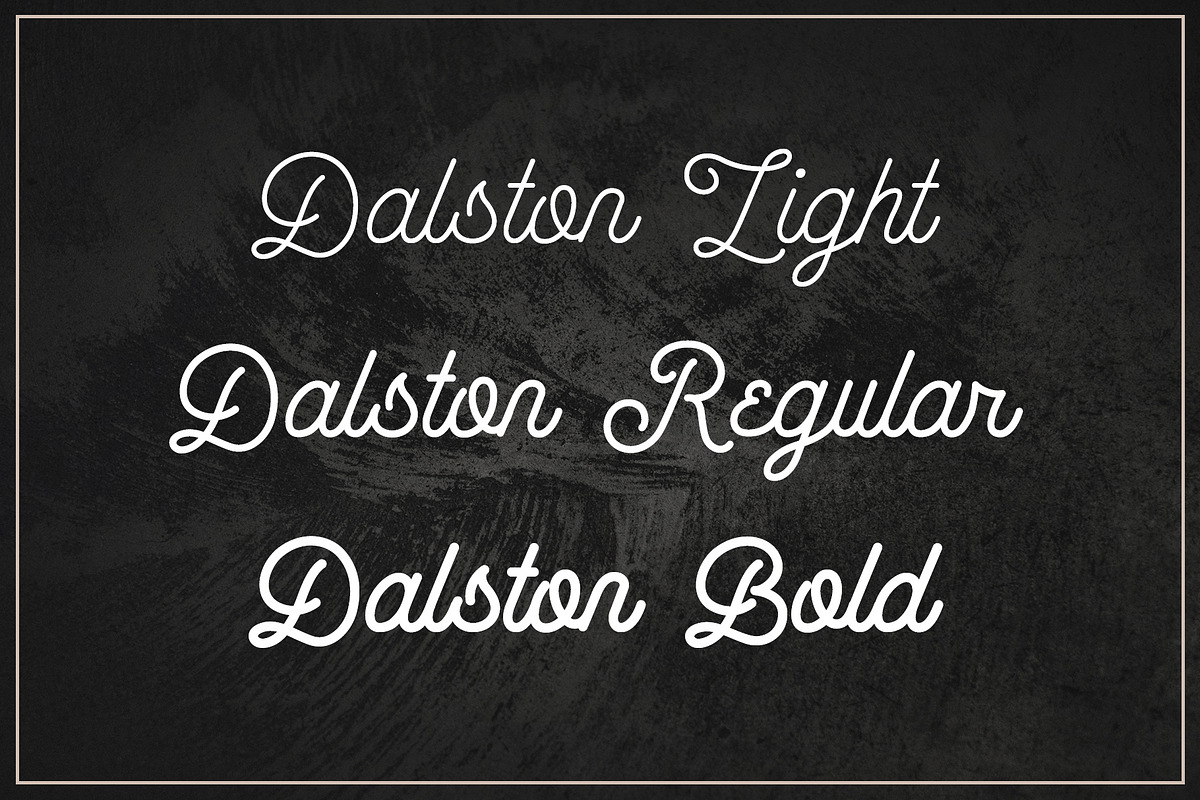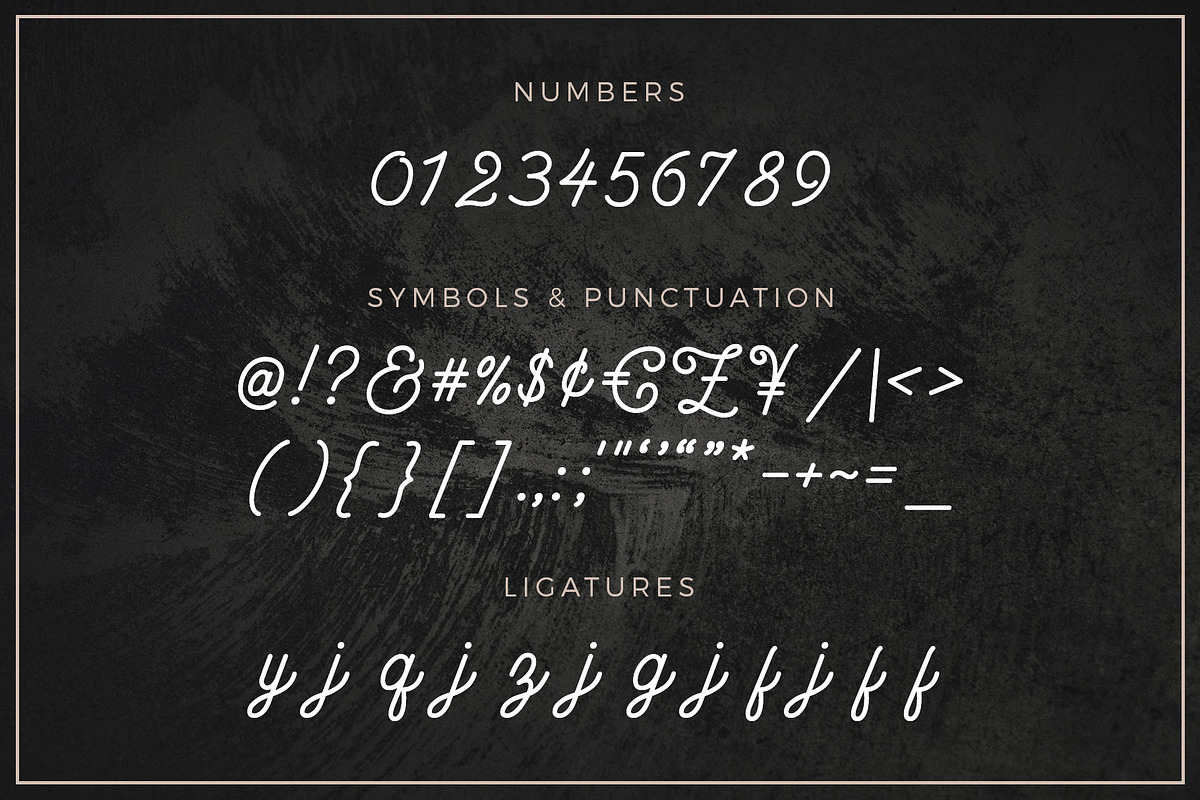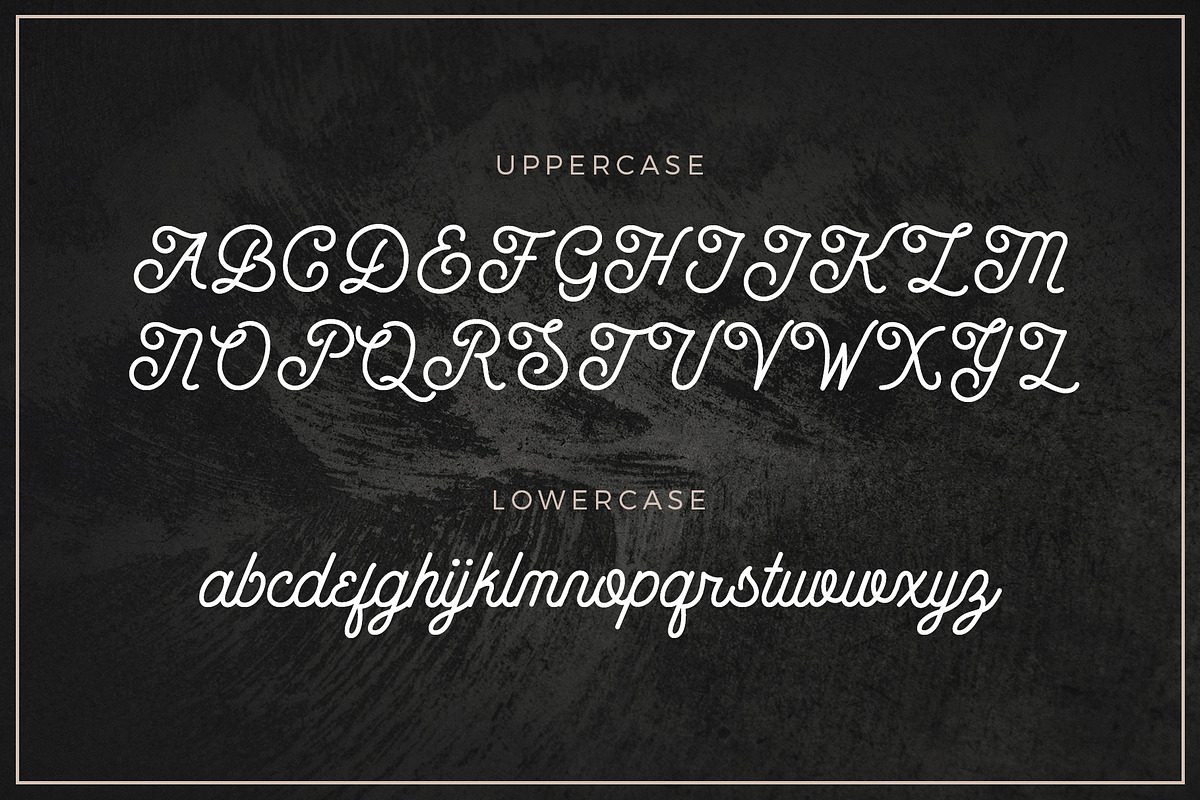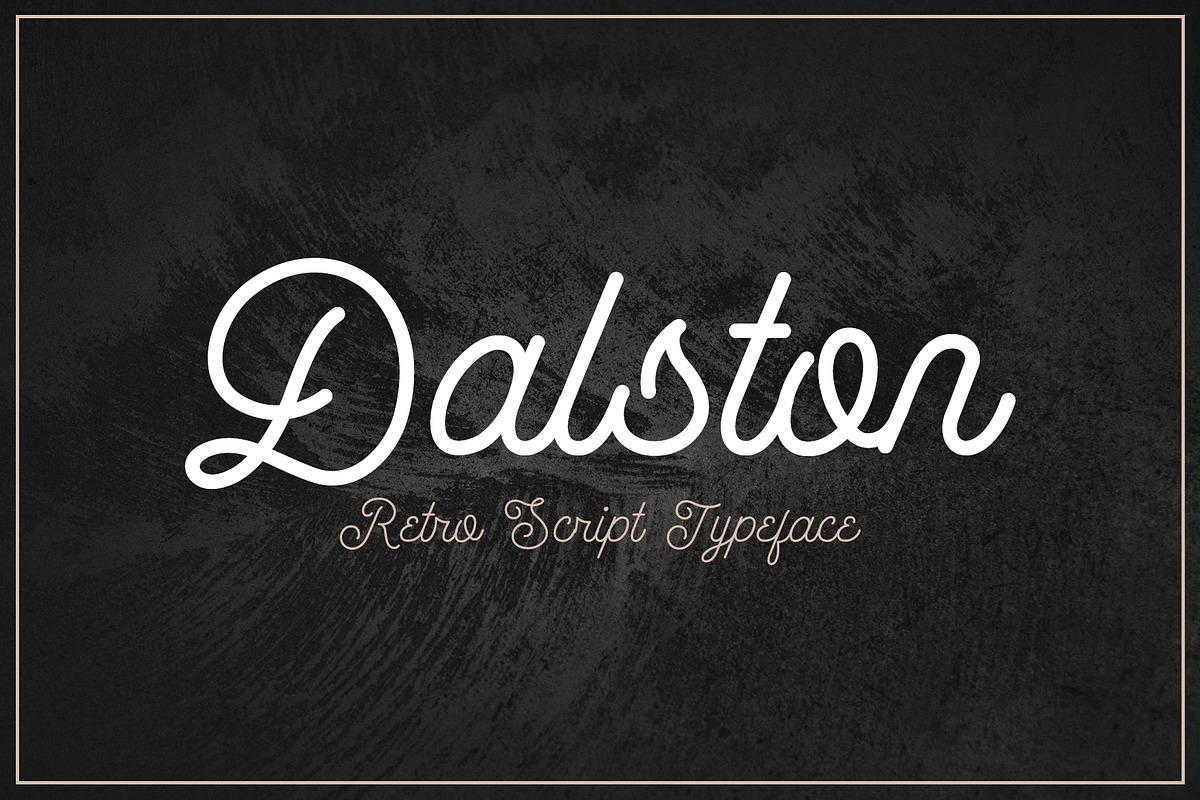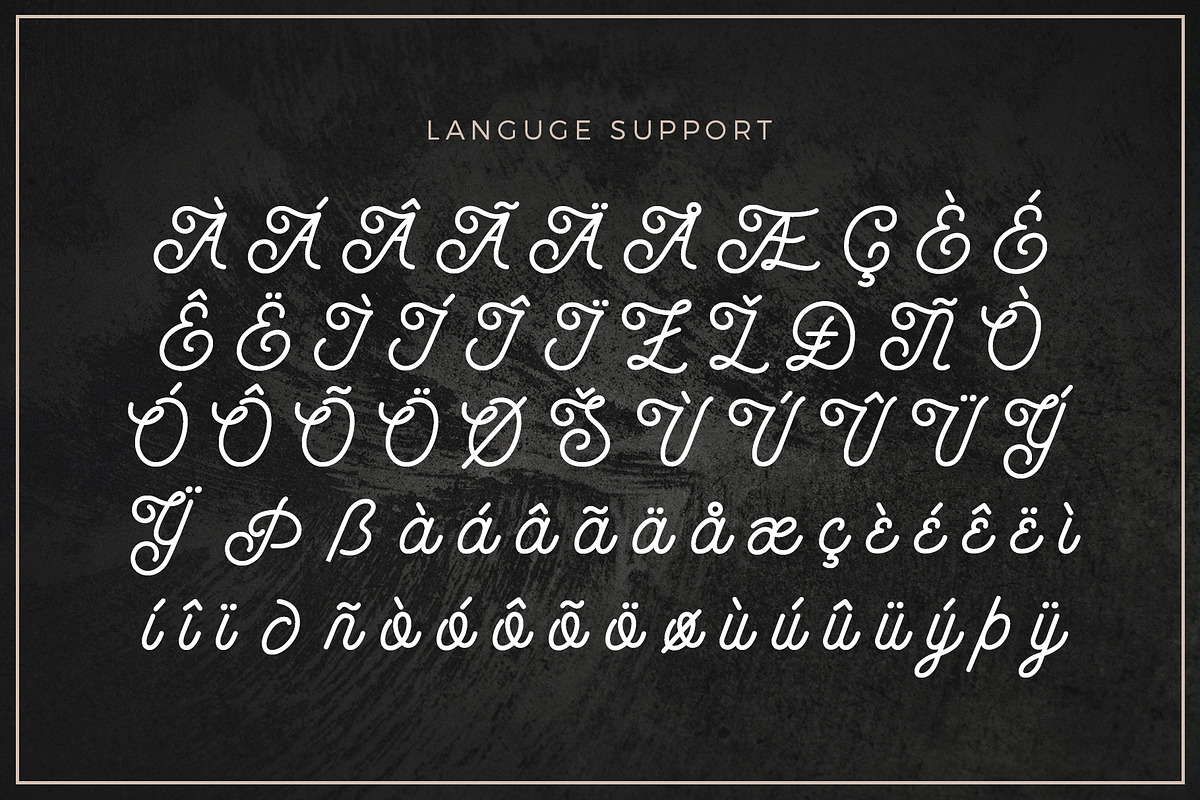
Dalston - Retro Script Font
Dalston is our new retro script typeface, ideal for headlines and hipster logotypes. Download it today and use it to create beautiful cursive handwriting
This script font includes all 3 different weights; Regular, Light and Bold. Dalston features all uppercase and lowercase letters, numbers 0-9, language support and most common symbols and punctuation. Dalston also includes extensive kerning and ligatures for flawless joined up writing.